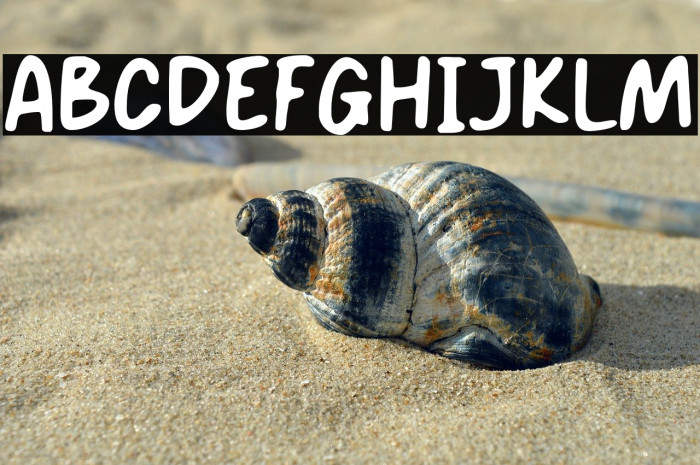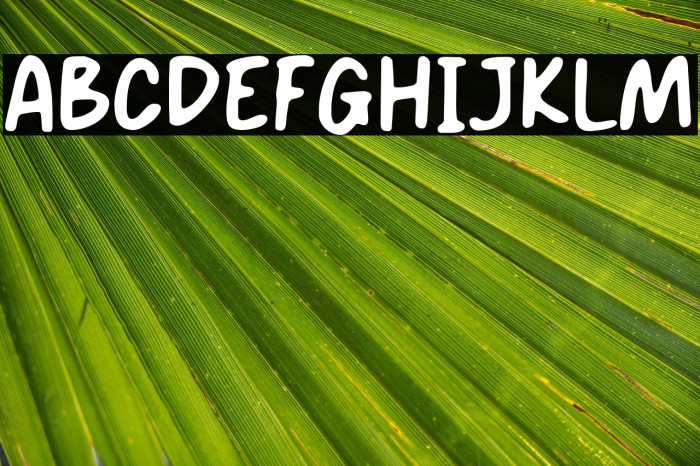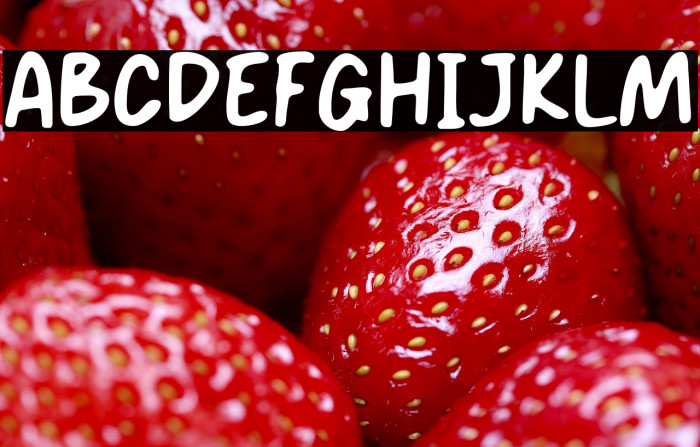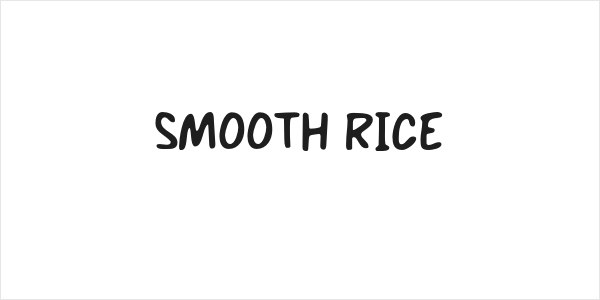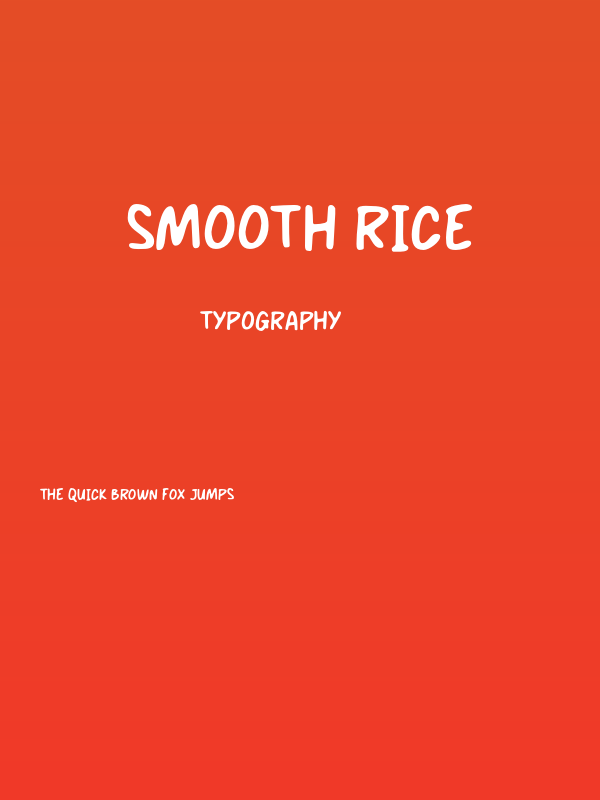
SMOOTH RICE Font
SMOOTH RICE Description
This font features a playful and casual handwritten style, characterized by rounded edges and smooth curves. The letters are bold and slightly irregular, giving them a friendly and approachable appearance. The consistent stroke width throughout the characters adds to its uniformity, while the slight slant in some letters introduces a dynamic feel. The numerals and special characters maintain the same playful aesthetic, ensuring cohesion across all elements. This font is well-suited for projects that require a personal touch or a relaxed vibe.
| Proposed Projects | Ideal for children's books, casual branding, greeting cards, and playful posters. |